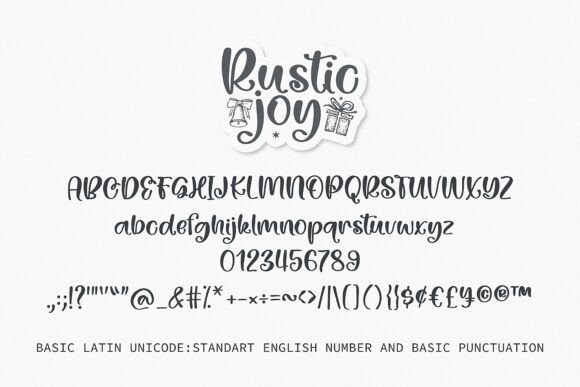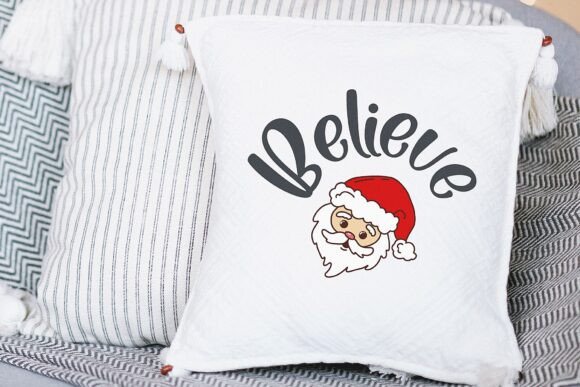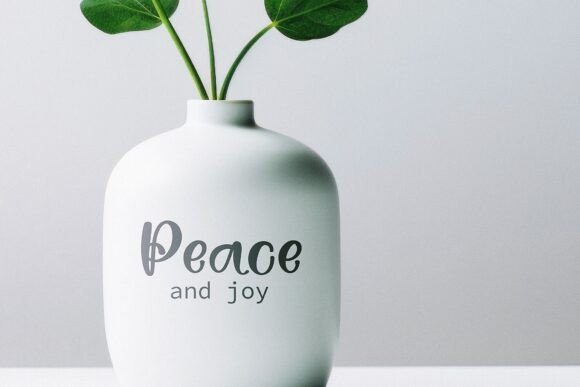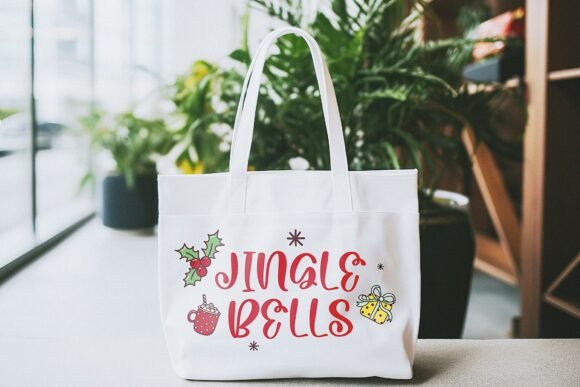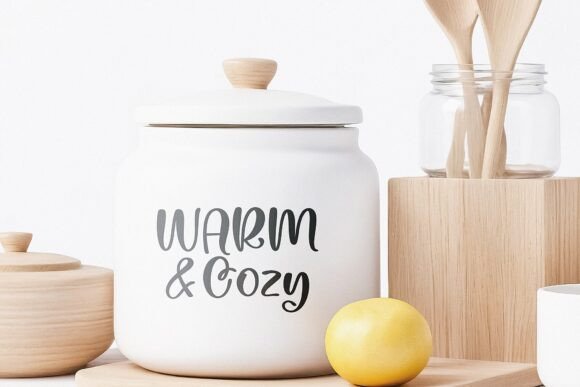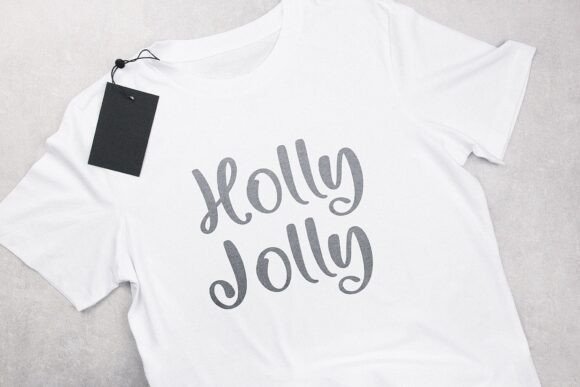
Introduction to Rustic Joy Font
Rustic Joy is a gorgeous handwritten font.
Fall in love with its incredibly versatile style and use it to create gorgeous wedding invitations, beautiful stationary art, eye-catching social media posts, and much more .
Key Features of Rustic Joy Font